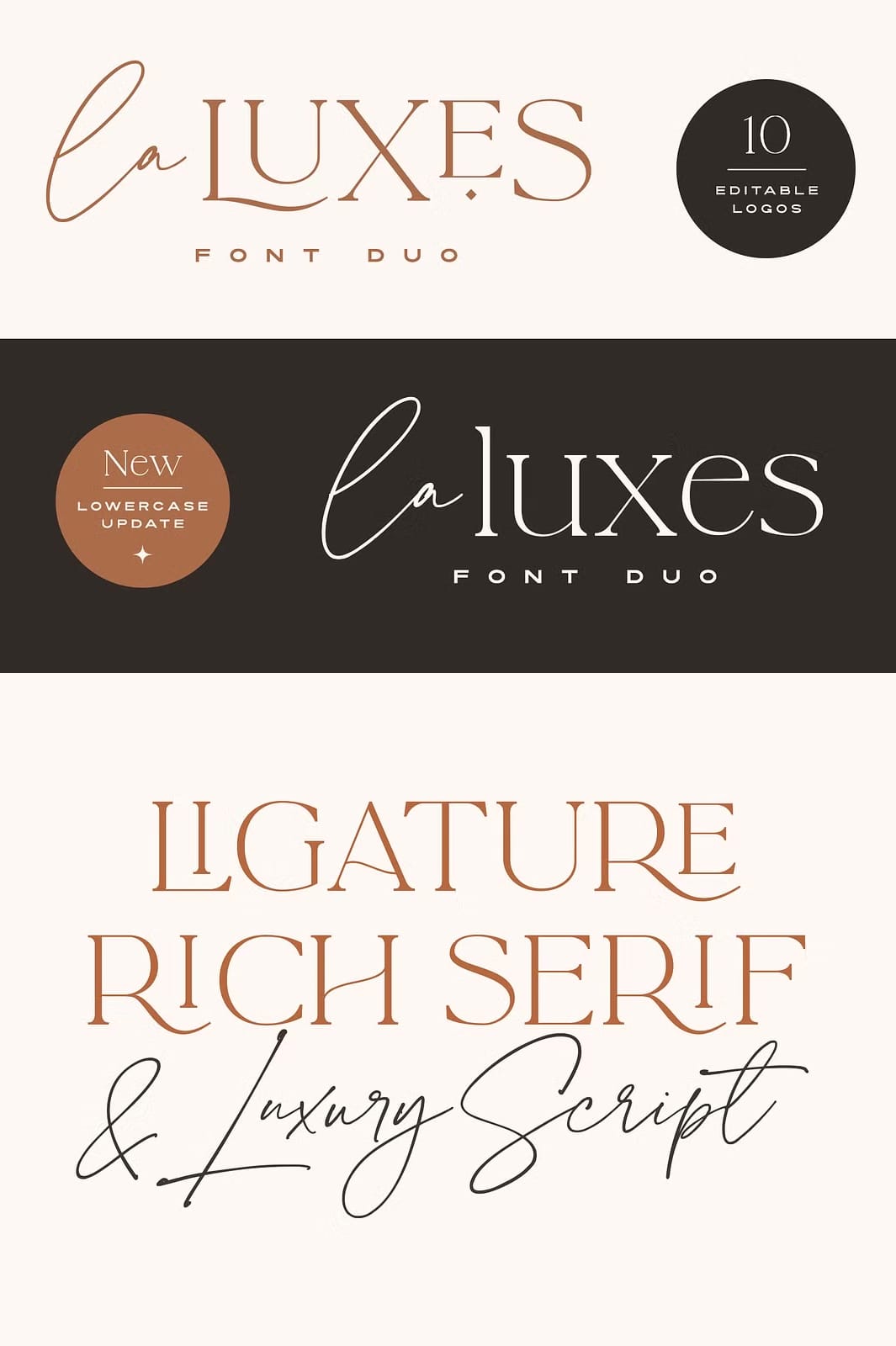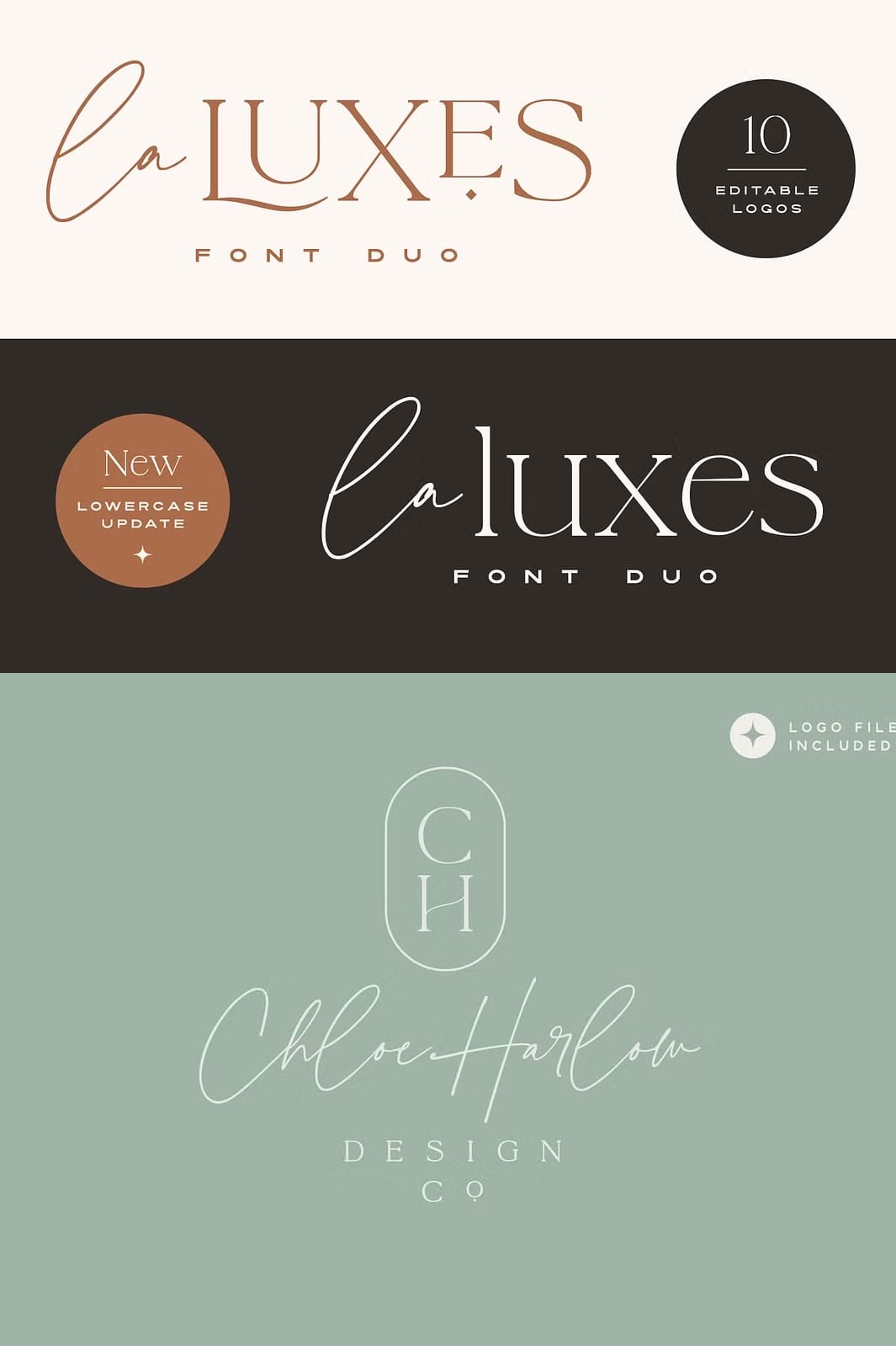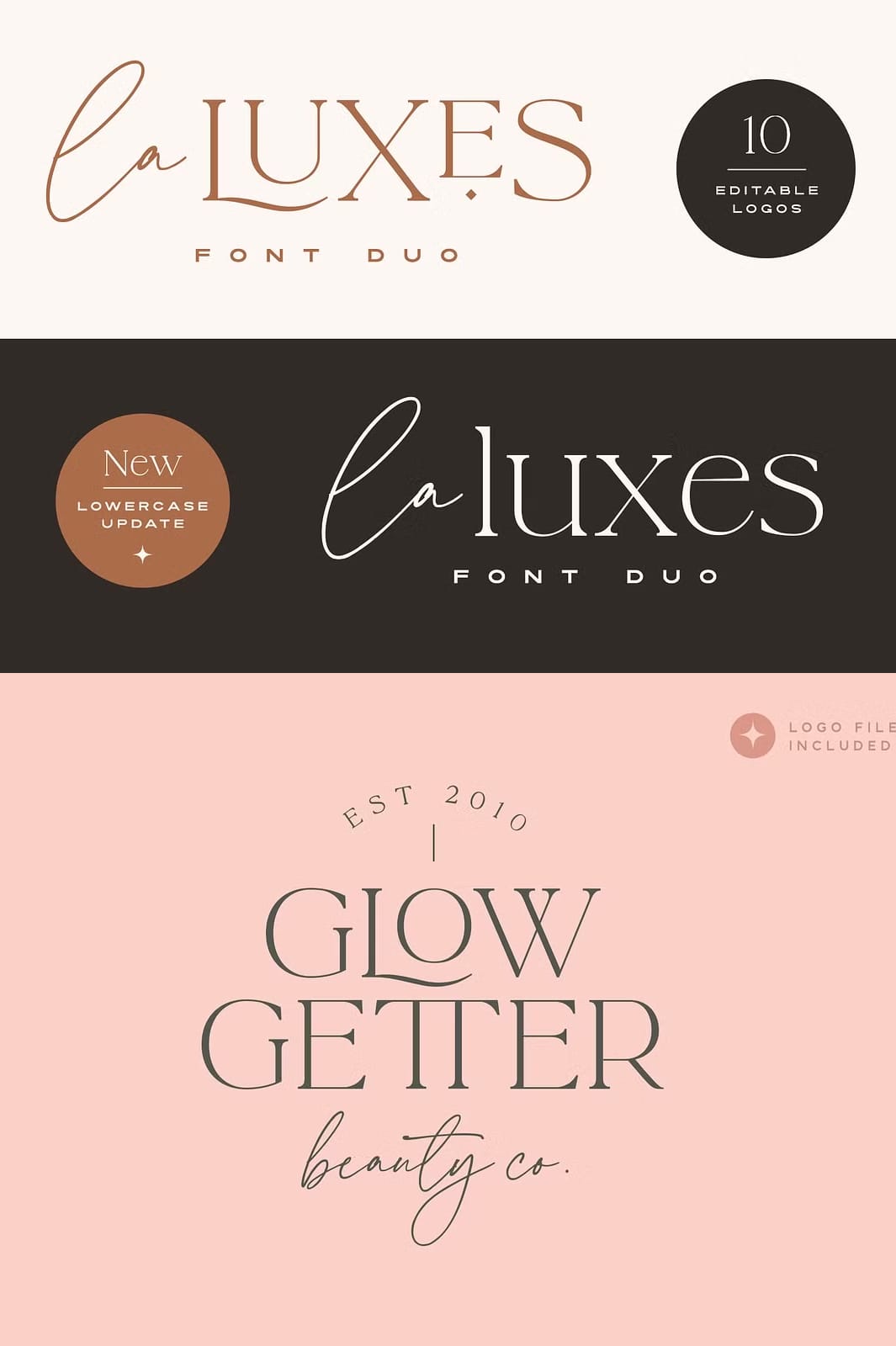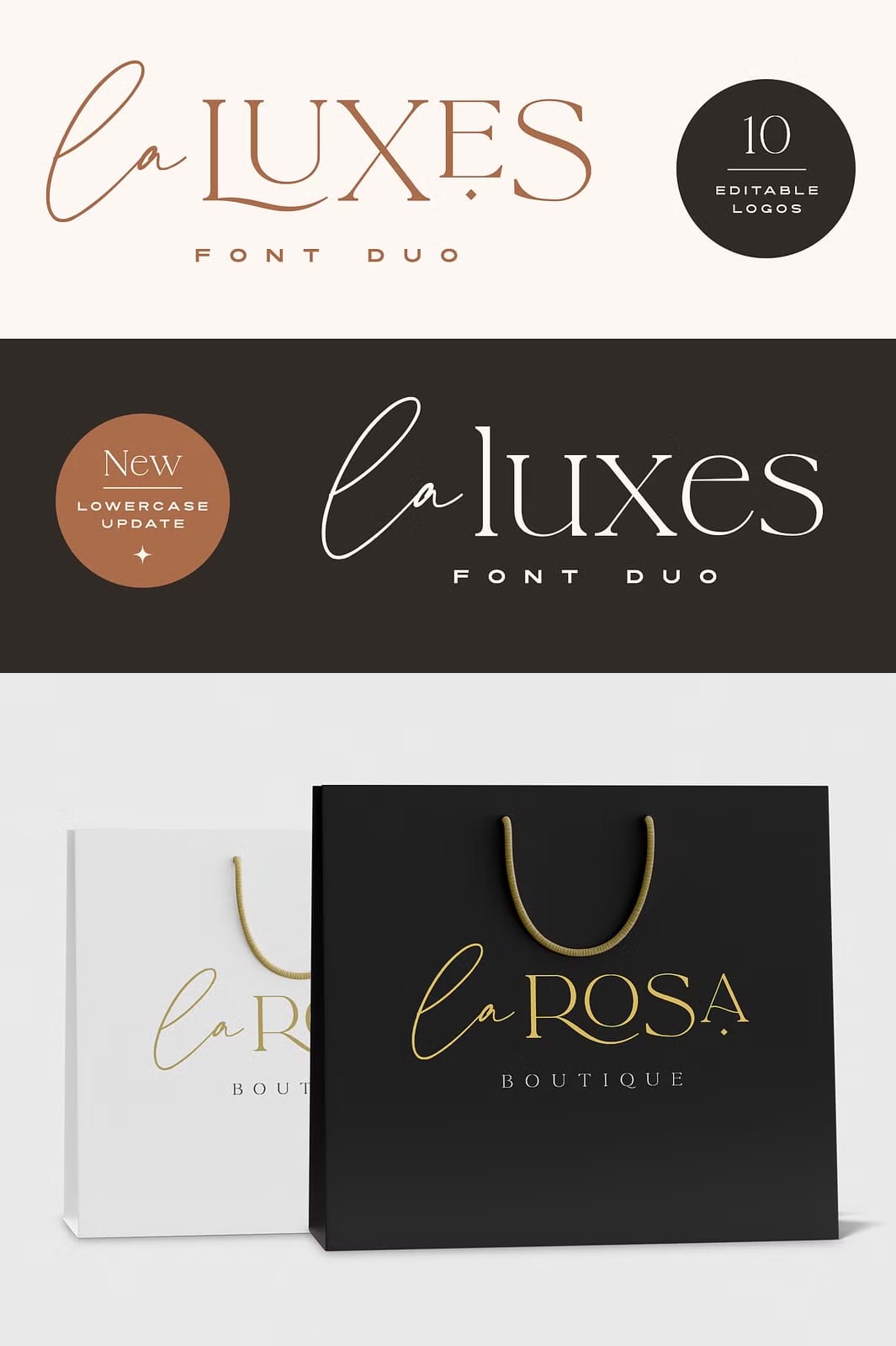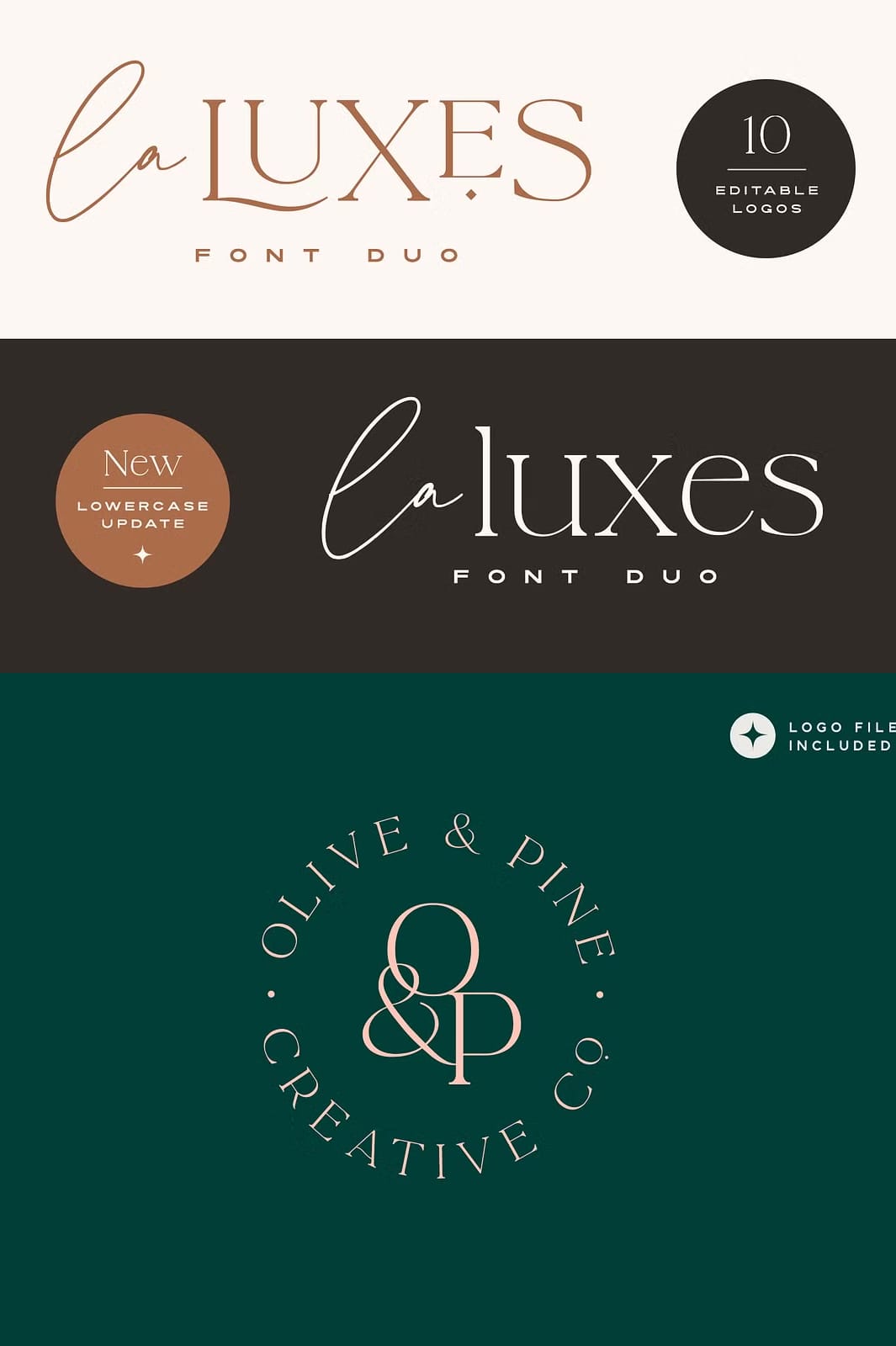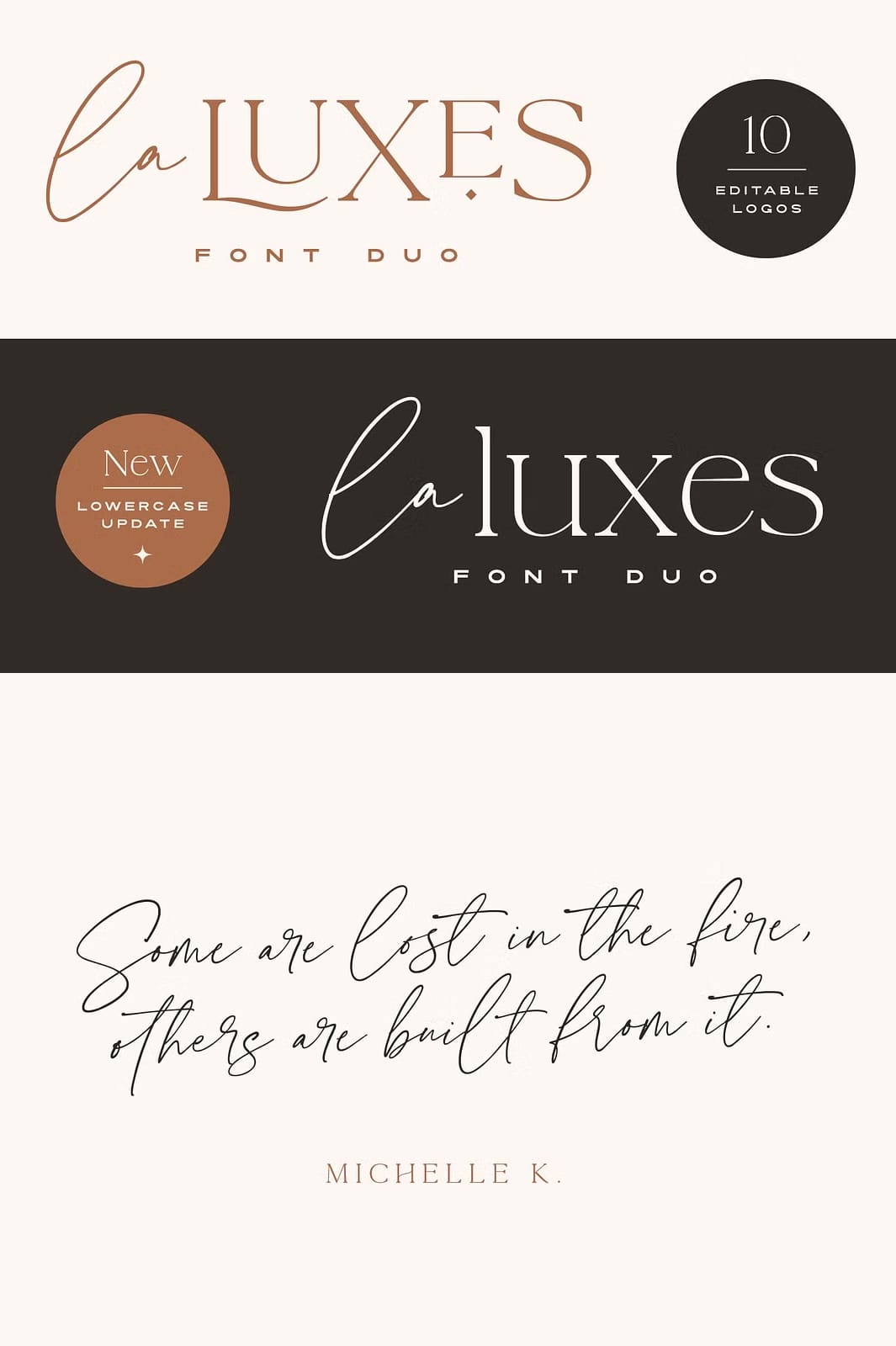
La Luxes Font Duo + Logos (Updated!)
Experience the perfect harmony of elegance and versatility with La Luxes, a sophisticated font duo designed for modern typographers. This premium collection combines a refined script font with a ligature-rich serif, creating endless possibilities for creative projects.
Crafted with precision, La Luxes offers a perfect balance between traditional craftsmanship and contemporary design. Whether you’re working on luxury branding, editorial layouts, or digital media, this font duo delivers exceptional typographic quality that elevates your work above the ordinary.
Comprehensive Font Features of La Luxes Duo
La Luxes Script offers 30 meticulously crafted ligatures that enhance natural text flow and add a custom-made feel to your typography. The font includes complete upper and lowercase character sets, punctuation, and numerals.
The serif component features 38 unique ligatures and 11 special characters that provide exceptional design flexibility. With stylistic alternates for characters like A, E, O, U, C, L, K, and R, you can create distinctive typographic compositions that stand out.
Both fonts include advanced typographic features such as oldstyle figures, tabular lining, inferiors, superiors, numerators, denominators, and fractions. These features enable professional-grade typesetting for both print and digital media, ensuring your designs look polished and refined.
The fonts’ character sets have been carefully designed to maintain consistent visual harmony across all supported languages. This attention to detail makes La Luxes ideal for multinational branding projects and global marketing campaigns.
Optimal Usage Scenarios for La Luxes Fonts
For logo design, we recommend using the serif font’s stylistic alternates to create distinctive brand identities. The elongated tails on characters like L, K, and R add visual interest to logotypes and monograms, making your brand memorable.
In editorial design, the script font’s natural flow works beautifully for pull quotes and chapter headings, while the serif font’s large x-height ensures excellent readability in body text, even at smaller sizes.
For digital media, the fonts’ clean lines and generous spacing maintain clarity at various screen resolutions. The included ligatures help create visually engaging web typography that captures attention and enhances user experience.